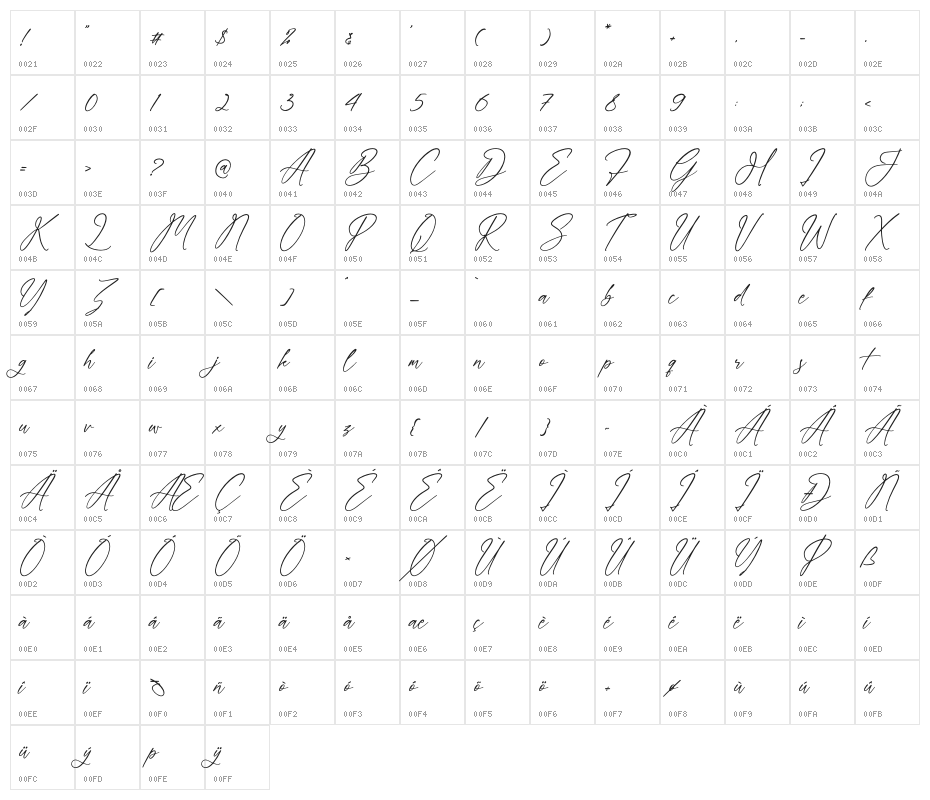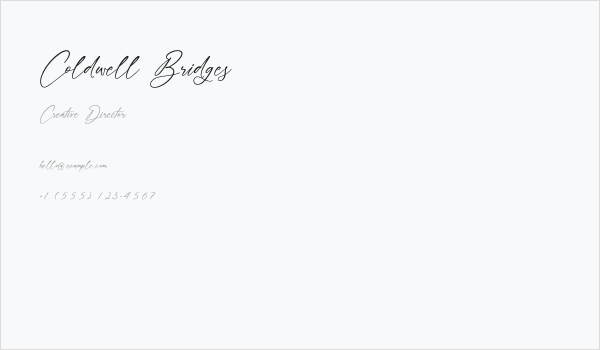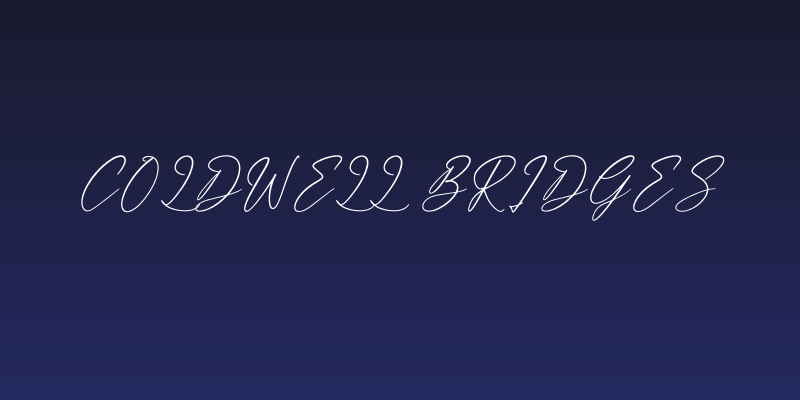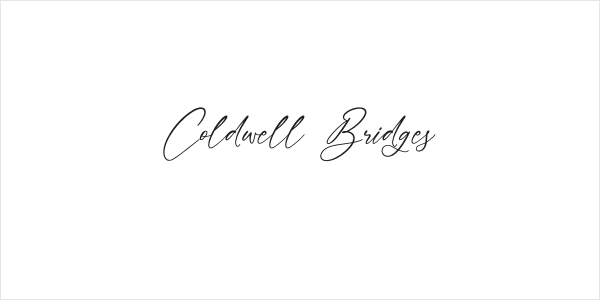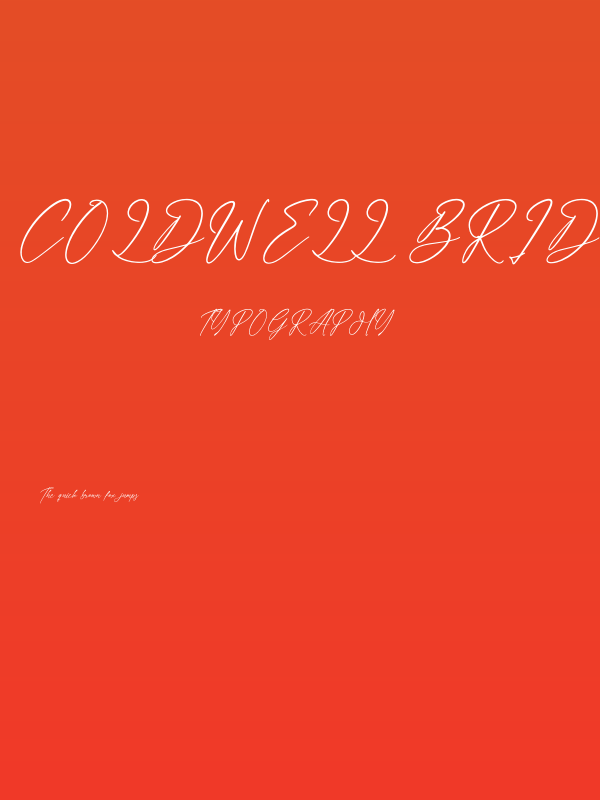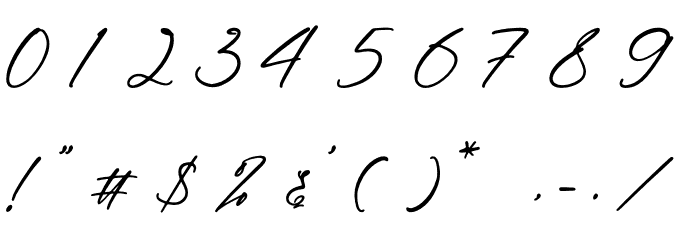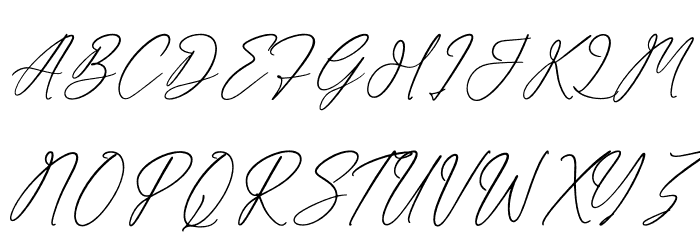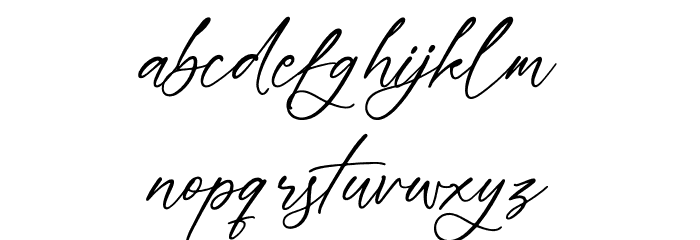
Coldwell Bridges Font
Coldwell Bridges Description
This elegant script font features fluid, cursive strokes that convey a sense of sophistication and grace. The letters are interconnected, creating a seamless flow that mimics natural handwriting. The uppercase letters are slightly more ornate, with flourishes that add a touch of flair, while the lowercase letters maintain a consistent, smooth appearance. The numerals and special characters are designed to complement the letterforms, ensuring a cohesive look across all text. This font is ideal for projects that require a personal, handwritten touch, such as invitations, greeting cards, and branding materials.
| Overall Style | Elegant, Handwritten |
| Use Case | Invitations, Greeting cards, Branding |
| Proposed Projects | Ideal for wedding invitations, greeting cards, personal branding, and elegant packaging. |